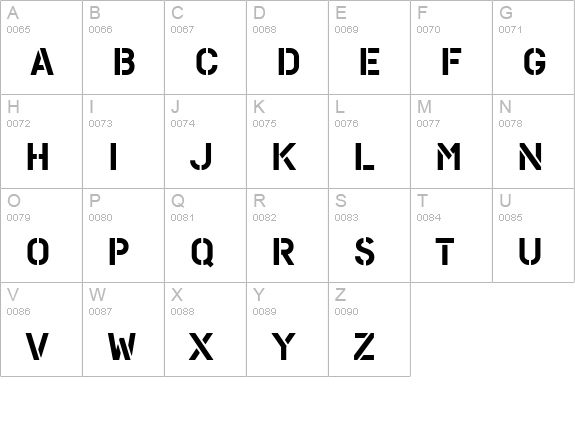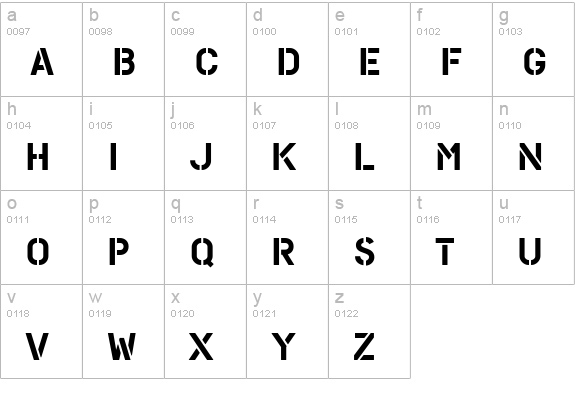
PFStampsPro-Solid Font Details
PFStampsPro-Solid font is a versatile typeface designed for various creative projects. This contemporary and sleek font features a solid design that exudes a modern and professional look. Perfect for branding, headlines, and graphic design, PFStampsPro-Solid font offers a clean and sophisticated aesthetic that will captivate your audience. What's even better is that PFStampsPro-Solid font is available for free download at FontsMarket.com, making it easily accessible for designers and creators looking to add a touch of elegance to their work. With its bold and impactful presence, this font is sure to make a statement and elevate the visual appeal of any project. Embrace the power of PFStampsPro-Solid font and unleash your creativity today!